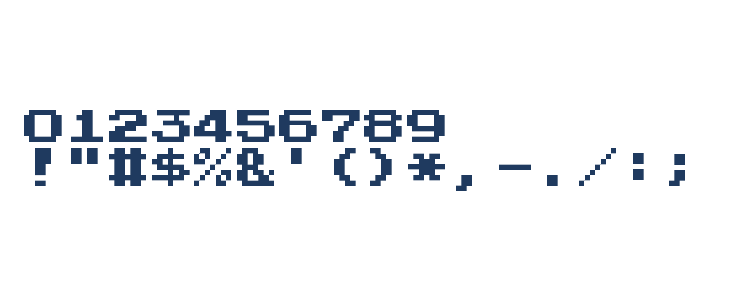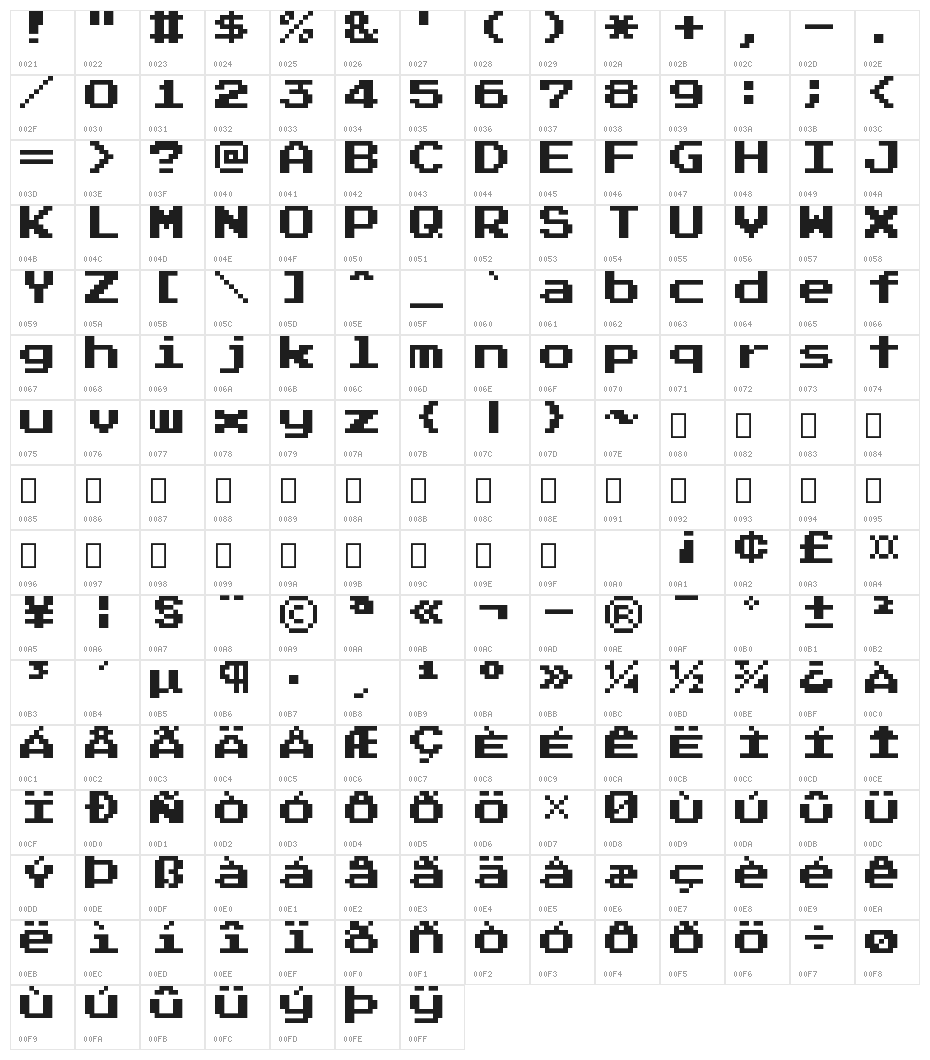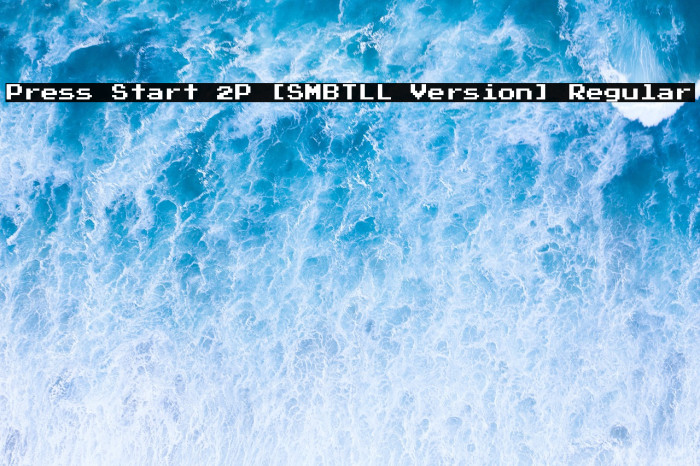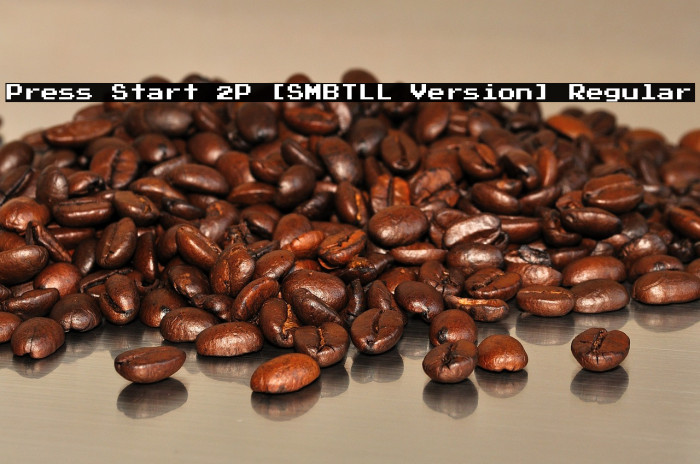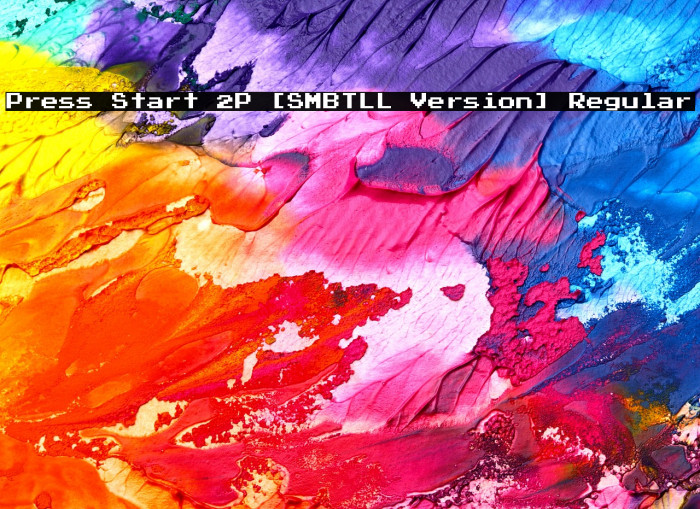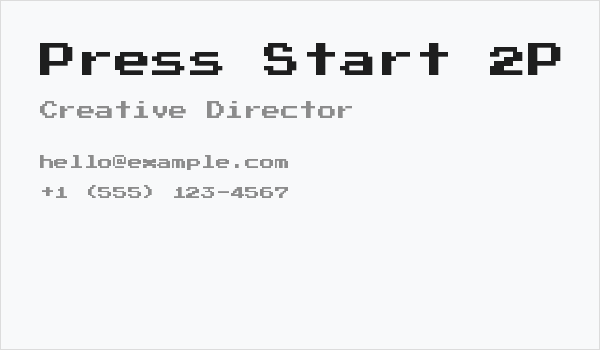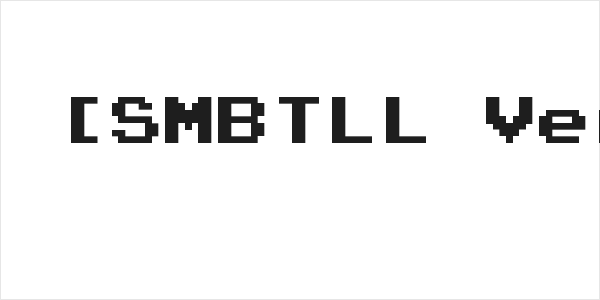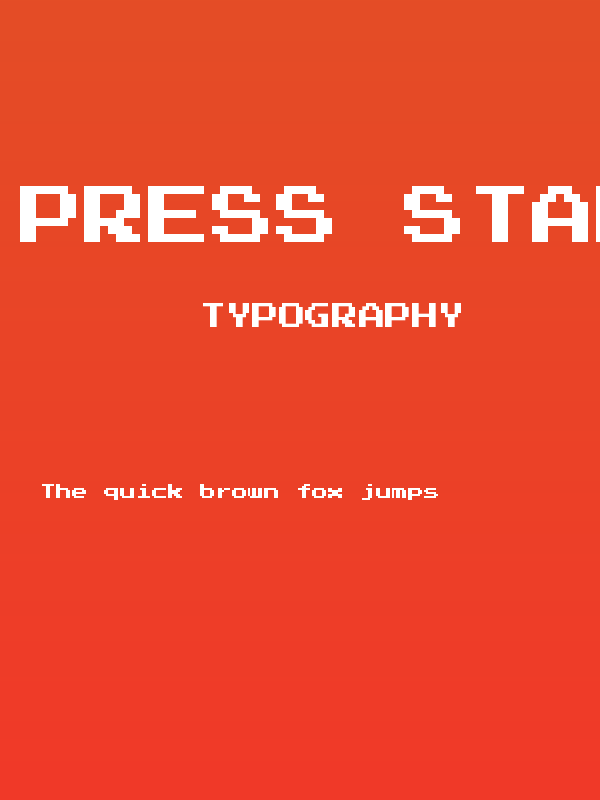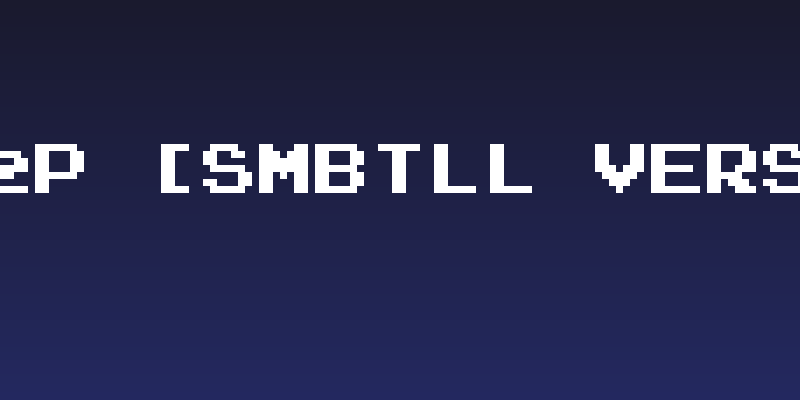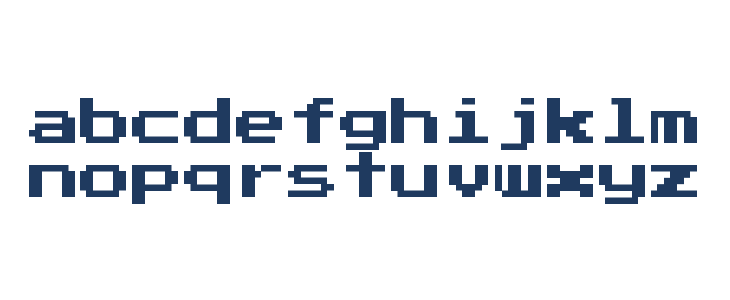
Press Start 2P [SMBTLL Version] Regular Font
Press Start 2P [SMBTLL Version] Regular Description
This font embodies a retro, pixelated style reminiscent of classic video games from the 1980s. Each character is constructed with a blocky, grid-like appearance, evoking the nostalgic feel of early digital displays. The uppercase and lowercase letters maintain a uniform height, contributing to a monospaced look that is both functional and visually striking. Numbers and special characters are designed with the same pixelated aesthetic, ensuring consistency across all glyphs. The font's simplicity and clarity make it ideal for projects that aim to capture a vintage gaming vibe.
| Proposed Projects | Ideal for video game design, retro-themed posters, digital art, and nostalgic branding projects. |